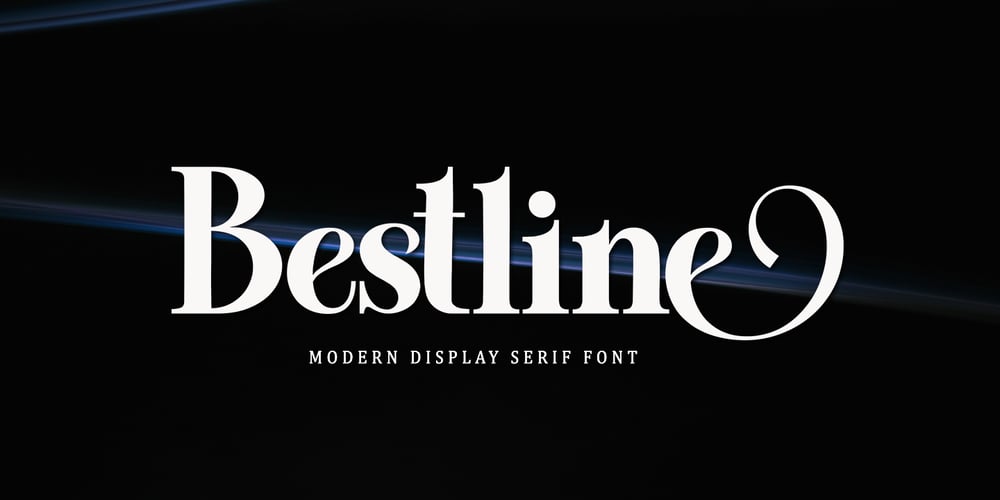
Bestline Font Family was designed by Wahi Din and published by Gold Type. Bestline contains 1 styles and family package options. Bestline is my new elegant serif font that will give your projects a touch of luxury and style. It’s perfect for logotypes, branding, monograms and wedding invitations, blog headlines, and more. Browse through all the previews and get as inspired as I was when creating this font.what will you have:Uppercase and lowercase lettersNumbers and punctuationMultilingual supportPUA encoded fontsAlternative styles and ligaturesSupported Languages: Armenian, Baltic, Central/Eastern Europe, Cyrillic, Elymaic, English, Ethiopic, Georgian, Old Hungarian, Romanian, Southeast Asia, Western EuropePlease contact us if you have any questions, we are happy to help you!